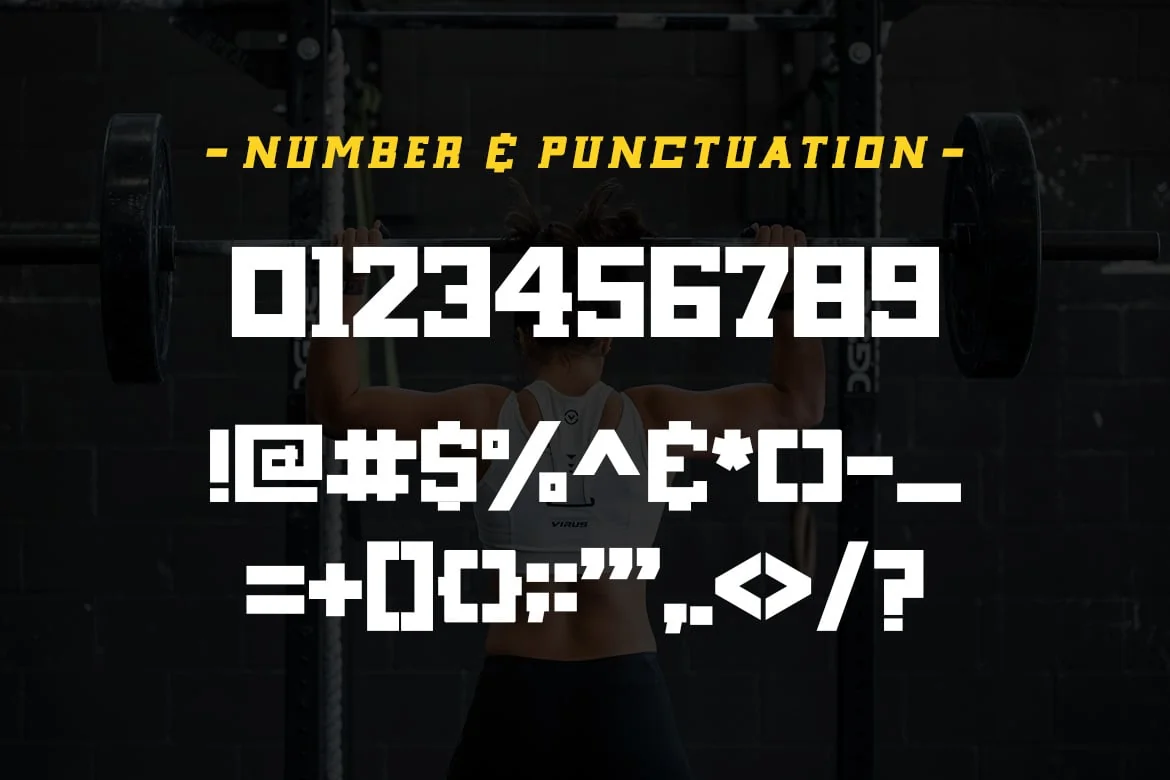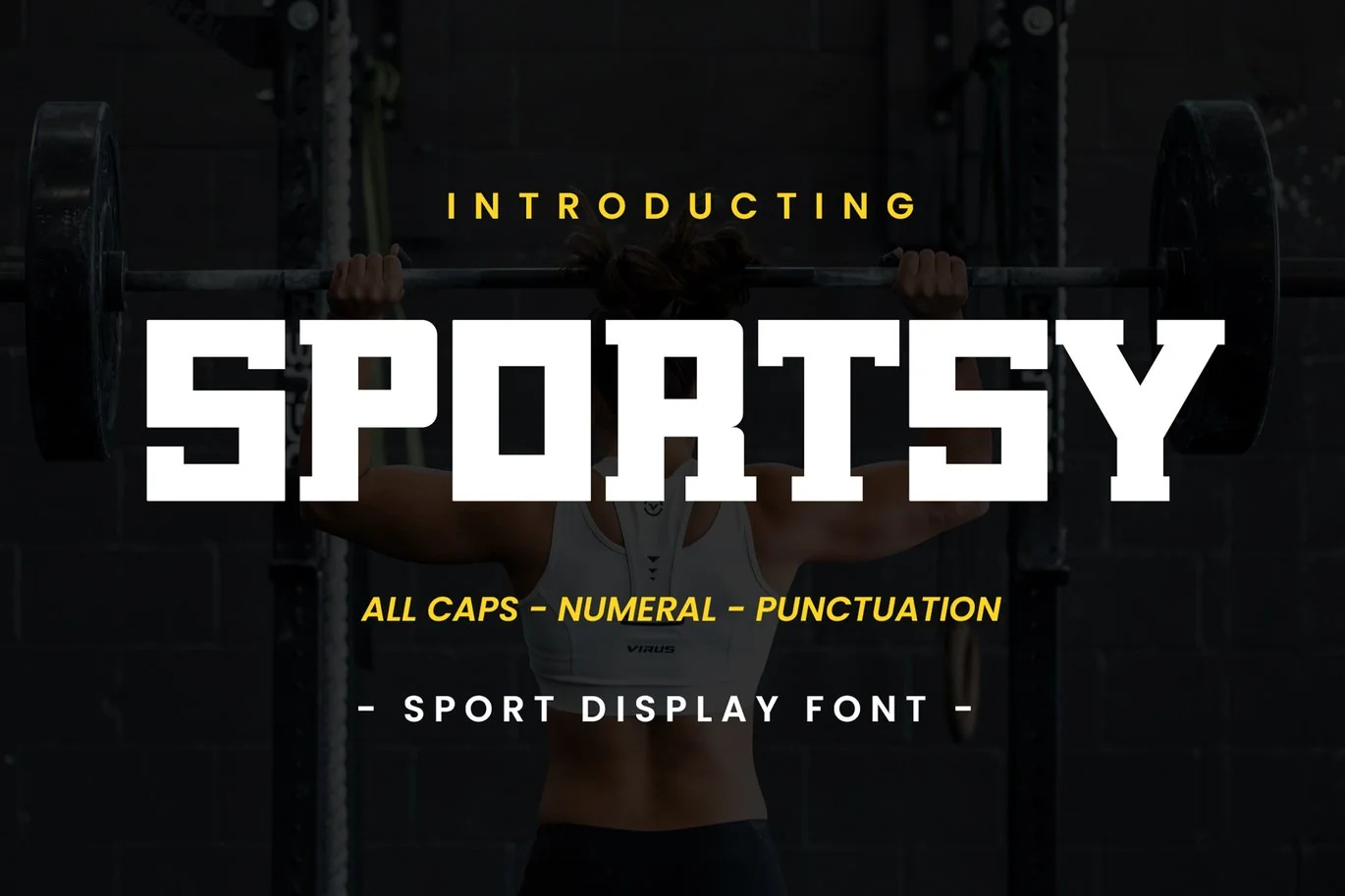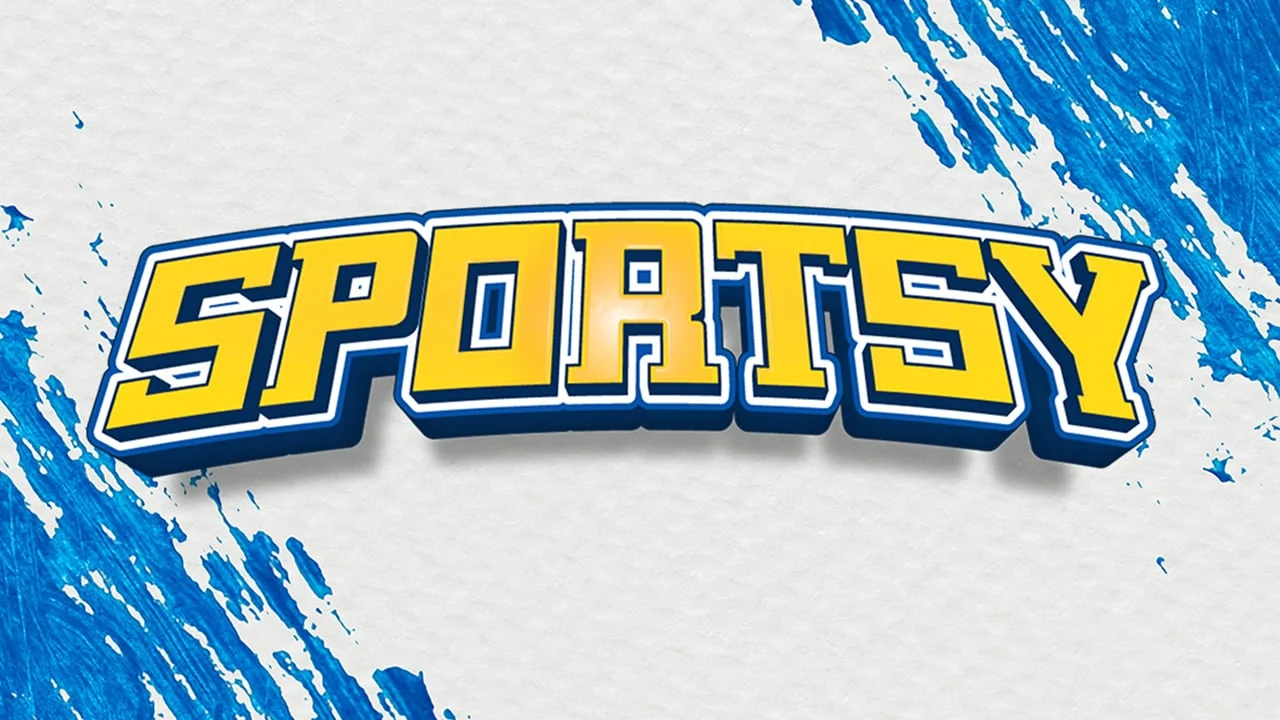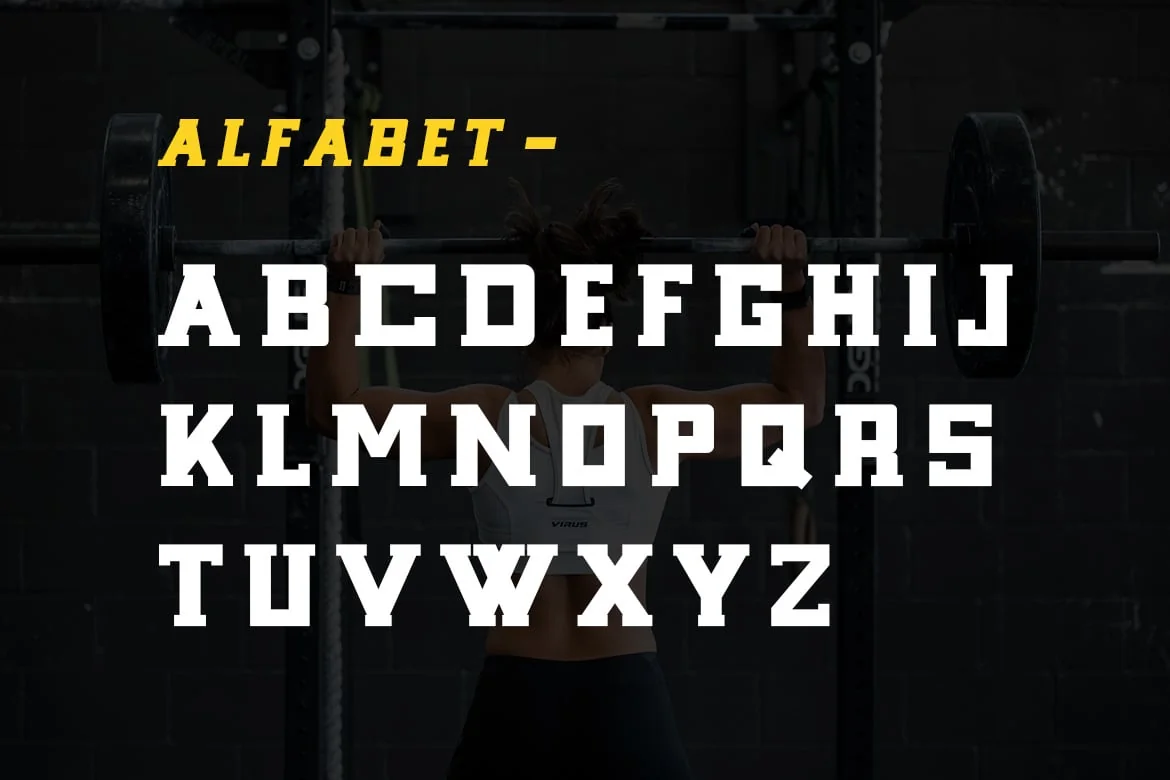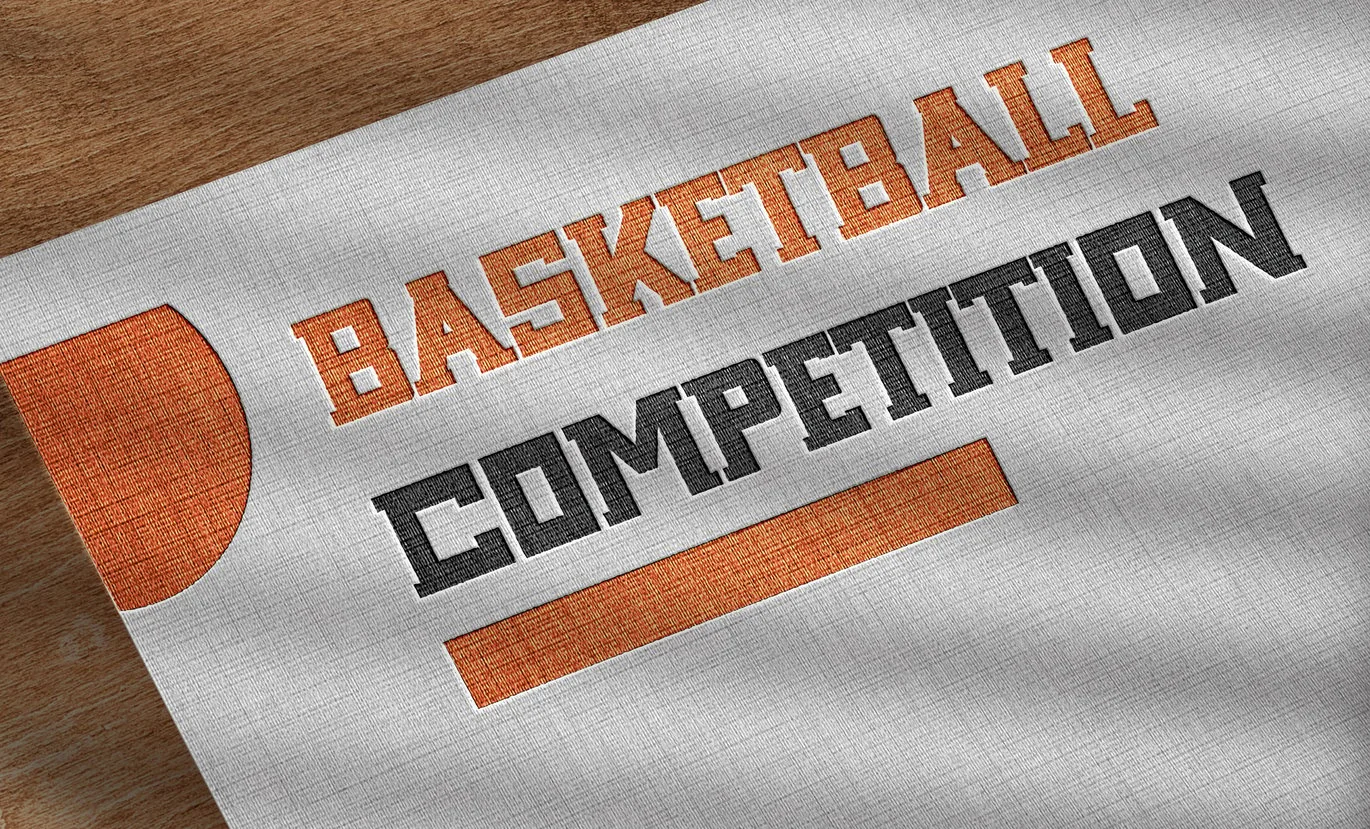
SPORTSY – Sport Display Font
SPORTSY is sport font, designed to draw attention and highlight any project that requires a bold feel, look powerful, created to add a vibrant touch to your sport-inspired designs. Suitable for sport design, team, jersey, league, movie, documenter, film, logo, poster, game, book cover, headlines, title and many more projects.
Uppercase Letters
Numbering and Punctuations